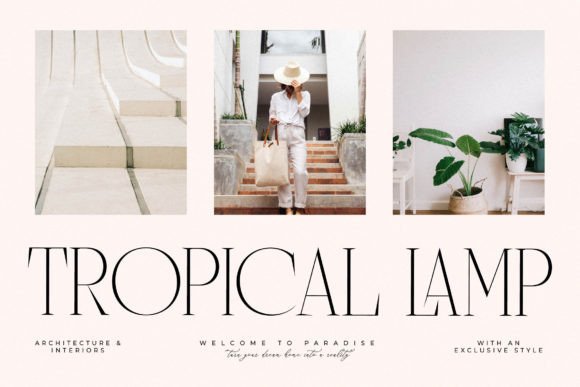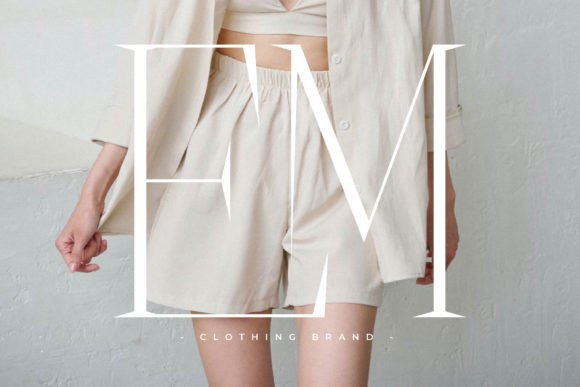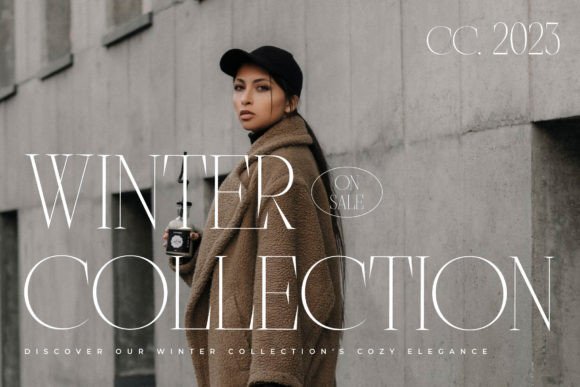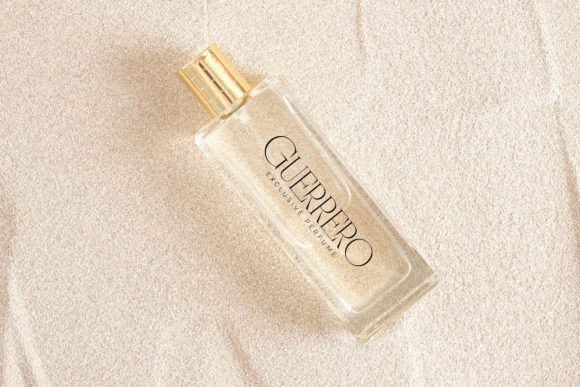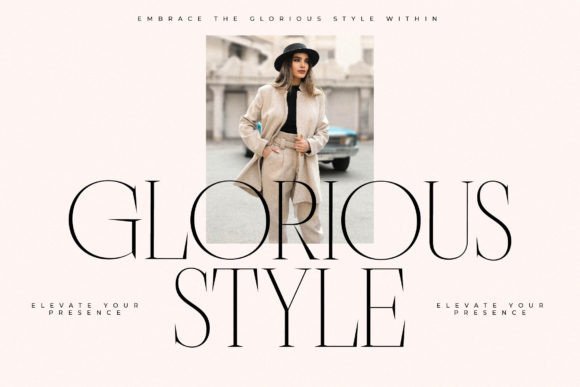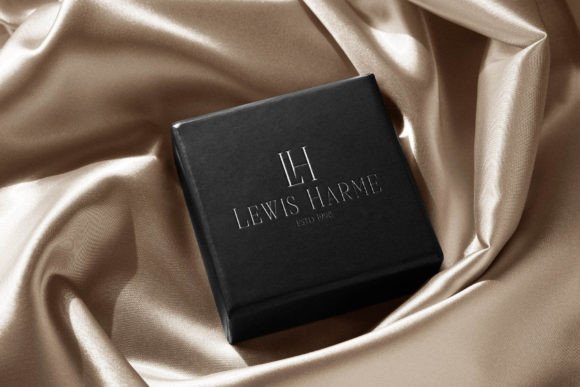
Introduction to Peany Timer Font
Have you ever found yourself scrolling through design inspiration boards, stumbling upon a beautifully crafted logo or typography piece that leaves you wondering, ‘How did they do that?’ For designers, the pursuit of the perfect font can be a never-ending quest. But what if you stumbled upon a typeface that not only met your expectations but exceeded them? Enter the Peany Timer Font, a modern and classic masterpiece that’s poised to elevate your creative projects.
Whether you’re working on a luxury brand, a high-end fashion label, or a sophisticated magazine, the Peany Timer Font is the perfect design resource to give your project that extra oomph. With its elegant and luxurious vibe, this font is a game-changer for designers who demand high-quality typography that speaks to their audience. And the best part? You can download it for free, making it an accessible design resource for creatives of all levels.
Key Features of Peany Timer Font
- Features a unique, playful design that is perfect for adding a touch of whimsy to your creative project.
Honest Review: Peany Timer Font
I recently stumbled upon the Peany Timer Font while searching for a design resource for my next creative project. As a designer, I’m always on the lookout for high-quality fonts that can elevate my work. The Peany Timer Font caught my eye with its unique and playful design.
What works well about this font is its versatility. It’s perfect for creating a fun and quirky vibe in your design, whether it’s for a social media post, a website, or even a business card. The font also comes with a transparent background, making it easy to place over any background image or color.
- Unique and playful design
- Perfect for creative projects and design resources
- High-quality font with transparent background
However, I did notice a few limitations. The font is only available in a limited number of weights, which might not be ideal for projects that require a range of font styles. Additionally, the font may not be suitable for formal or professional designs.
Tips for Getting the Most Out of Peany Timer Font
Use the Peany Timer Font in conjunction with other design elements to create a cohesive and visually appealing design. Experiment with different font sizes, colors, and styles to find the perfect combination for your project.
The Peany Timer Font is perfect for creating eye-catching titles, headings, and labels for your design projects. It’s also great for adding a touch of personality to your branding and marketing materials.